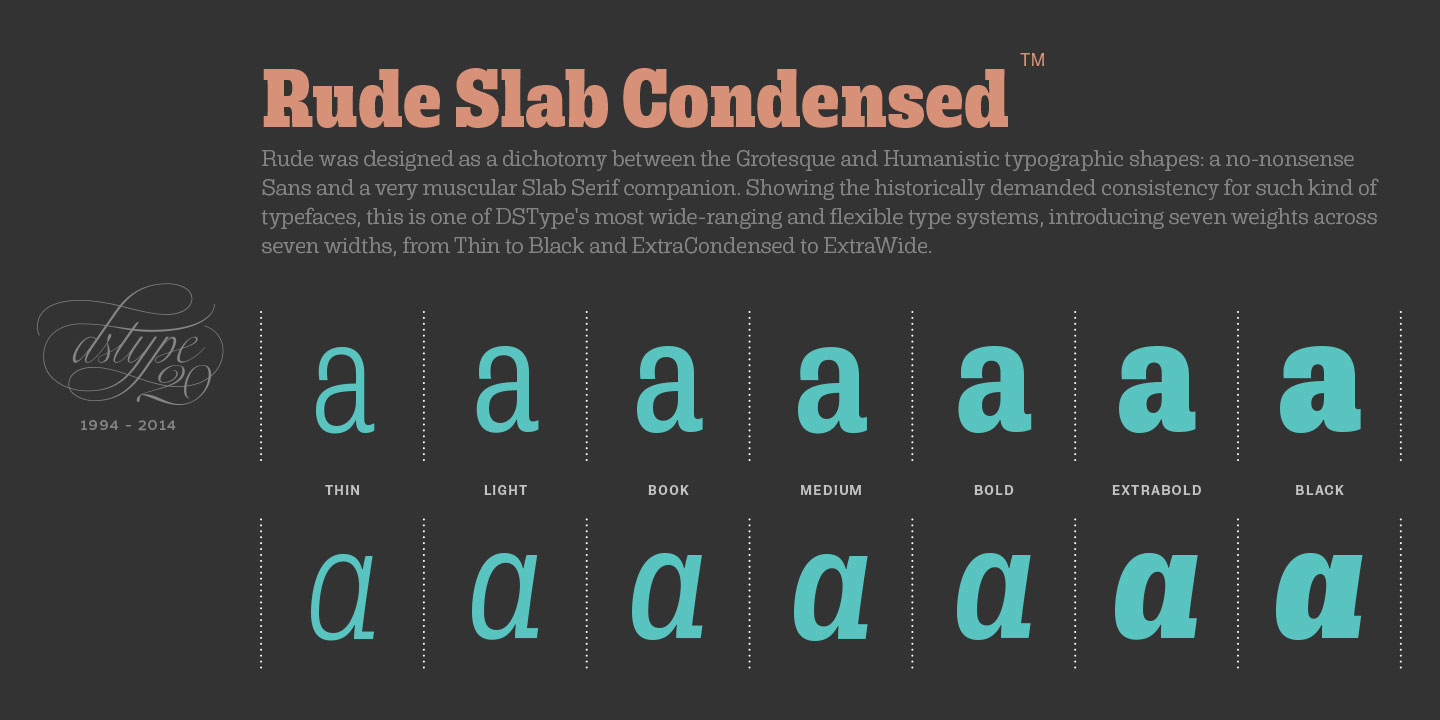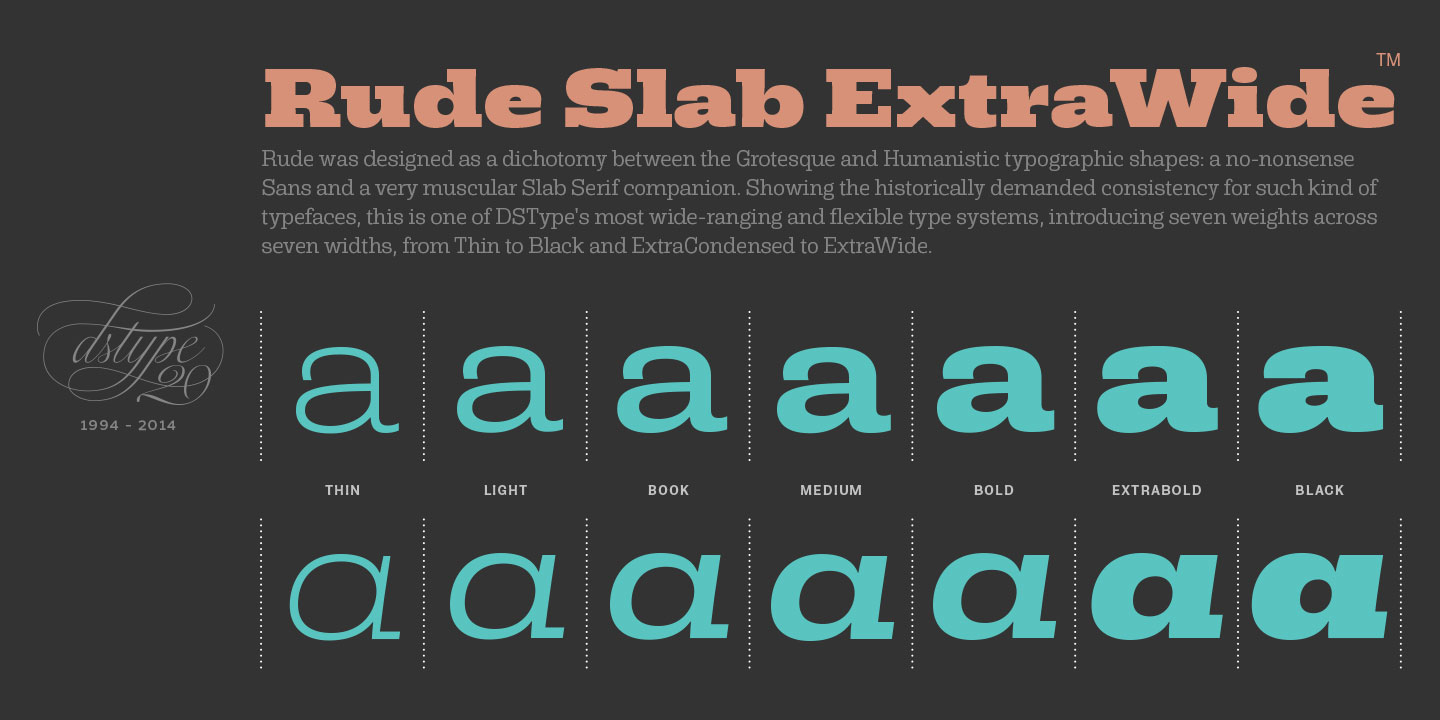
Rude Slab ExtraCondensed Medium
Rude was designed as a dichotomy between the Grotesque and Humanistic typographic shapes: a no-nonsense Sans and a very muscular Slab Serif companion. Showing the historically demanded consistency for such kind of typefaces, this is one of DSType's most wide-ranging and flexible type systems, introducing seven weights across seven widths, from Thin to Black and ExtraCondensed to ExtraWide, along with a wonderful set of Icons.